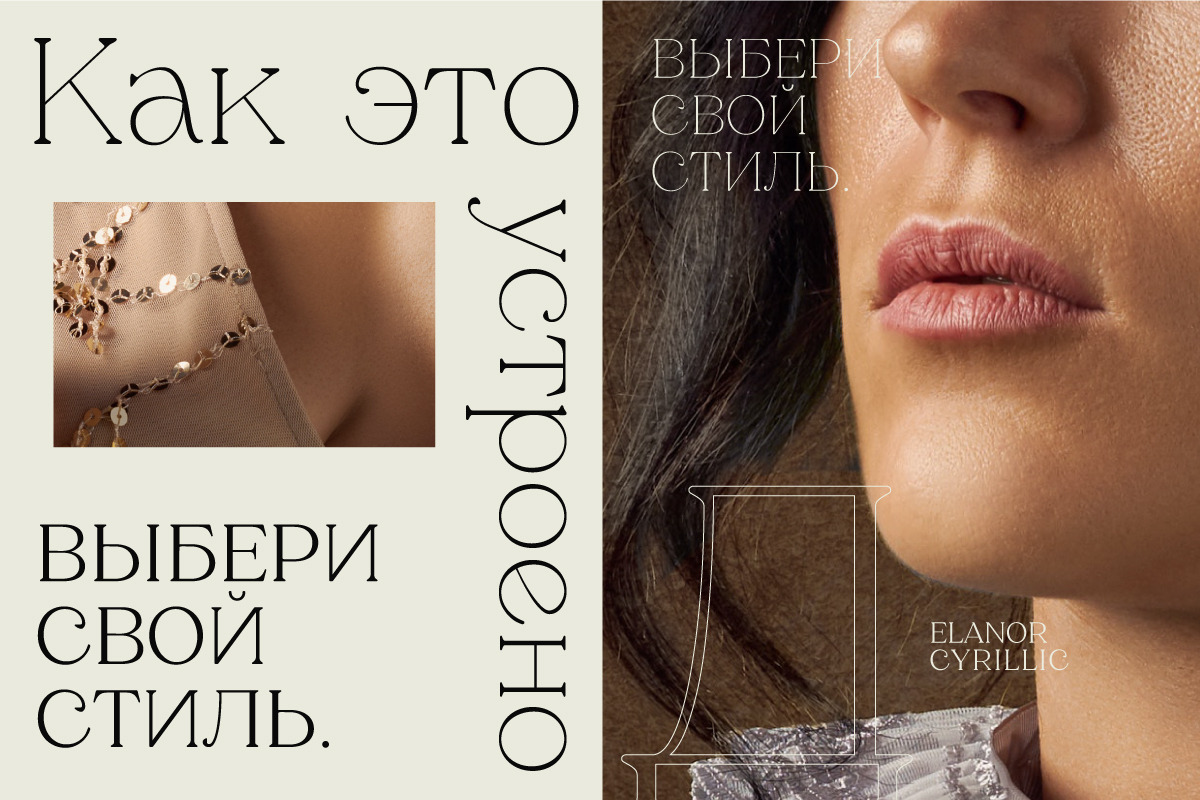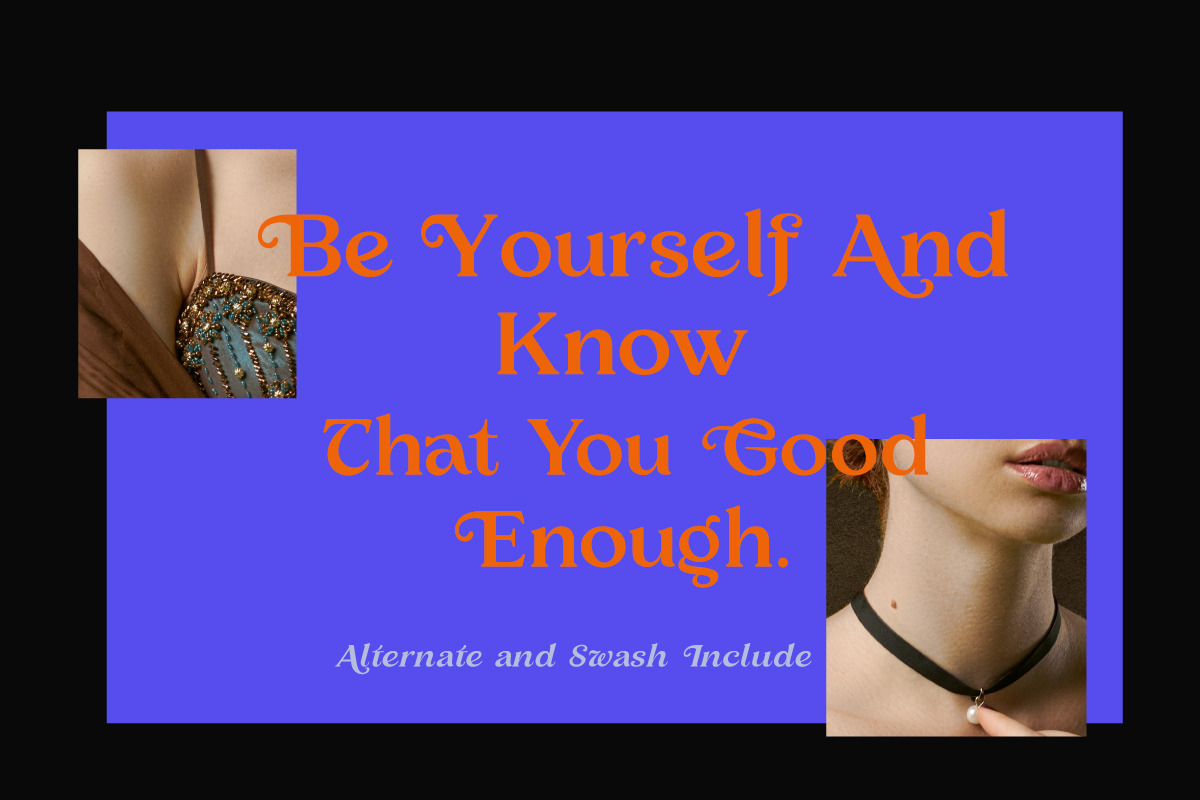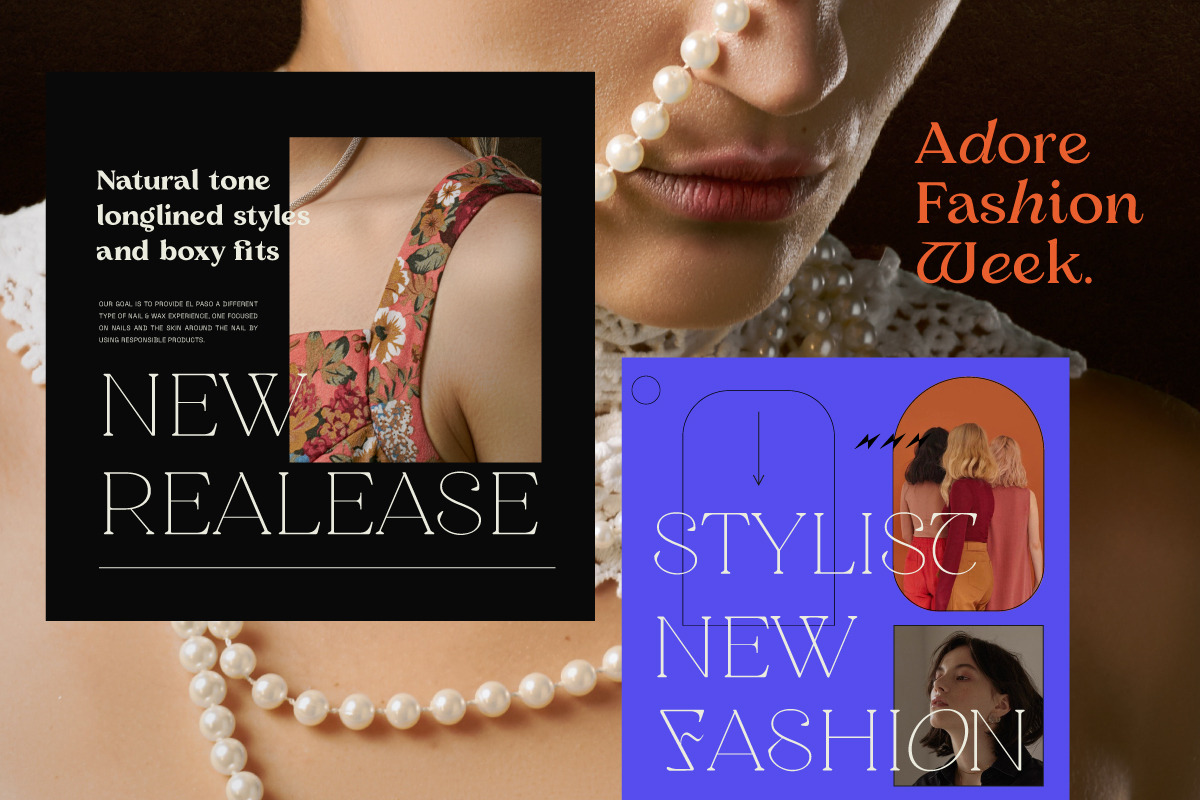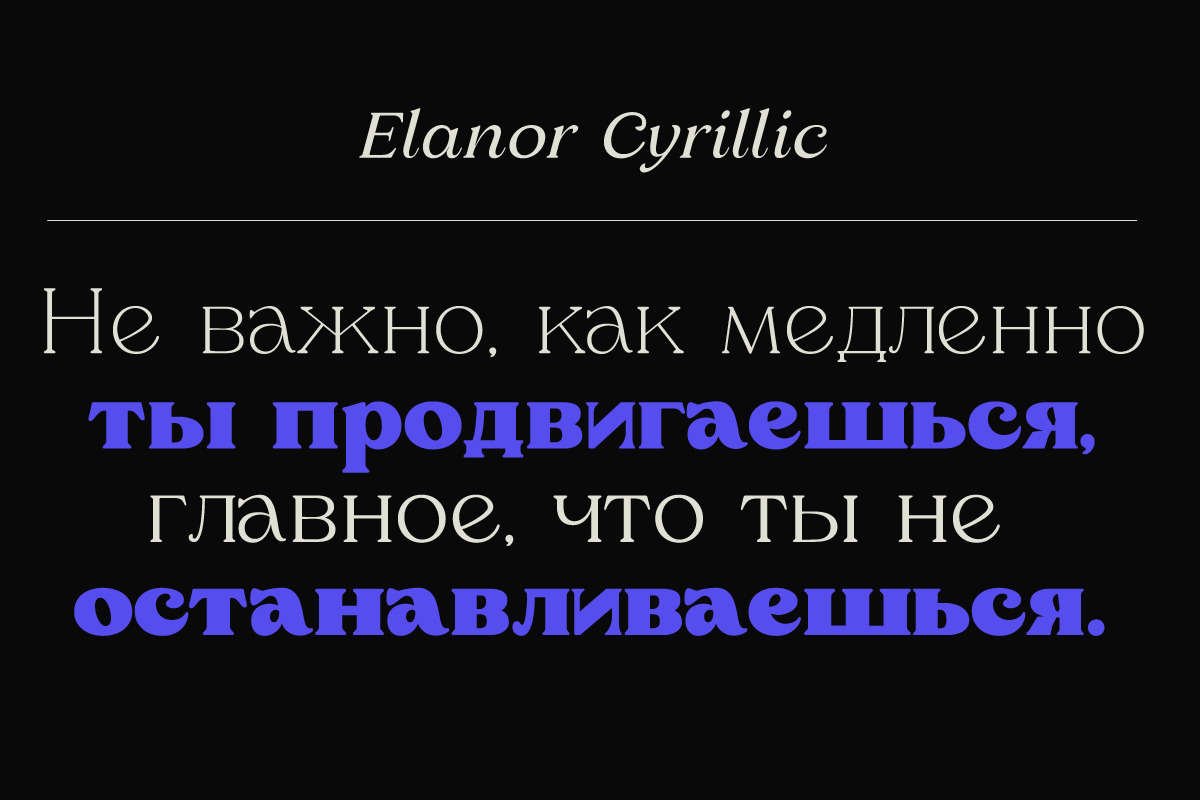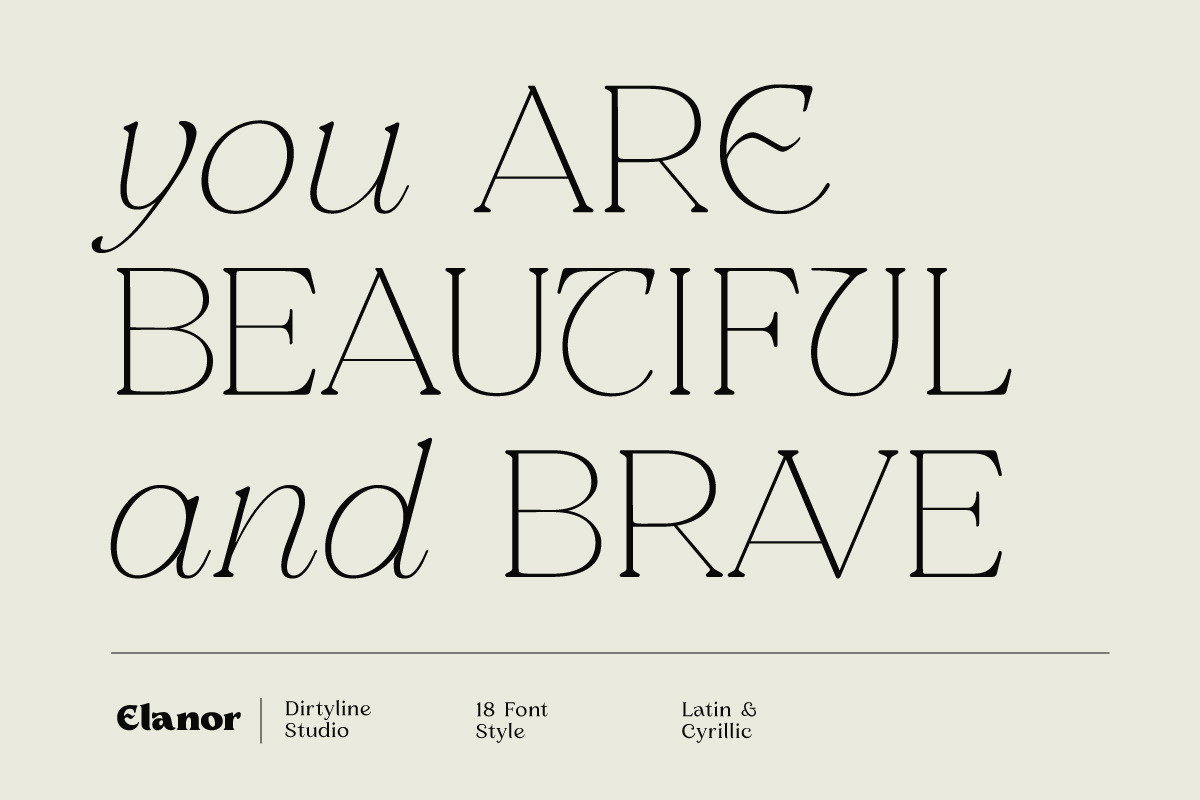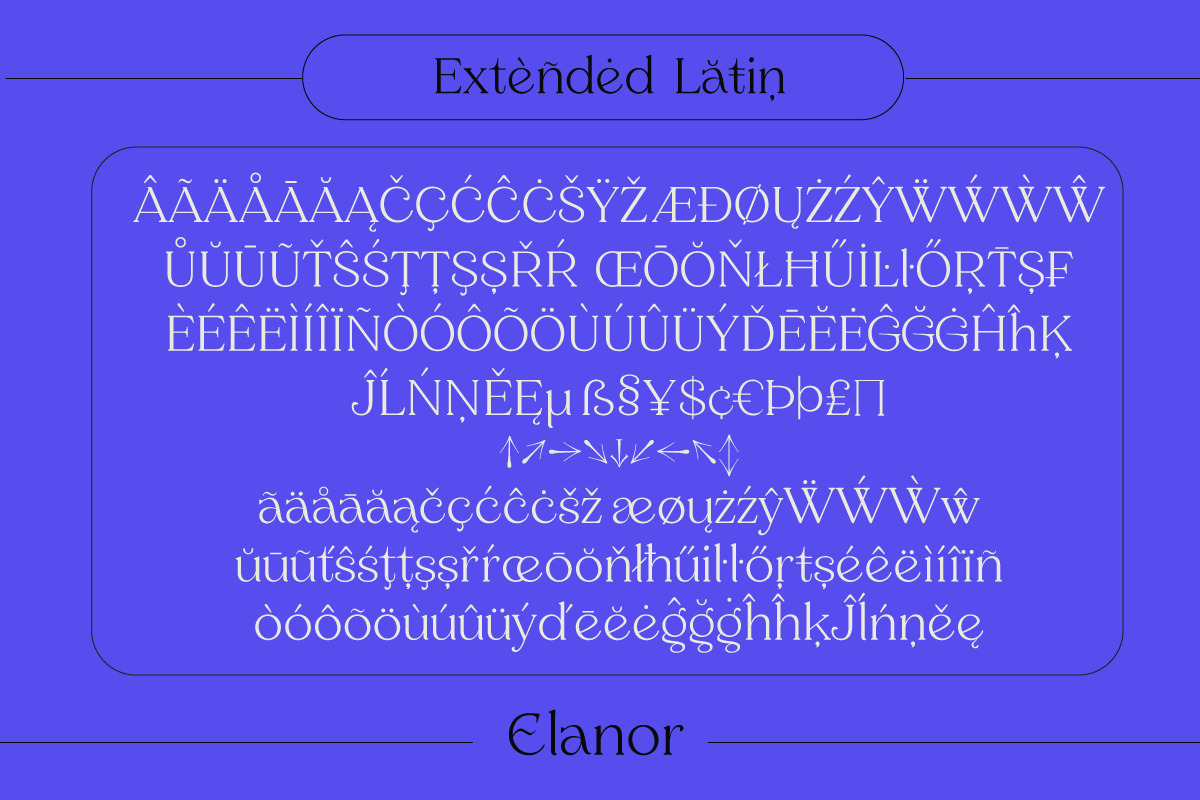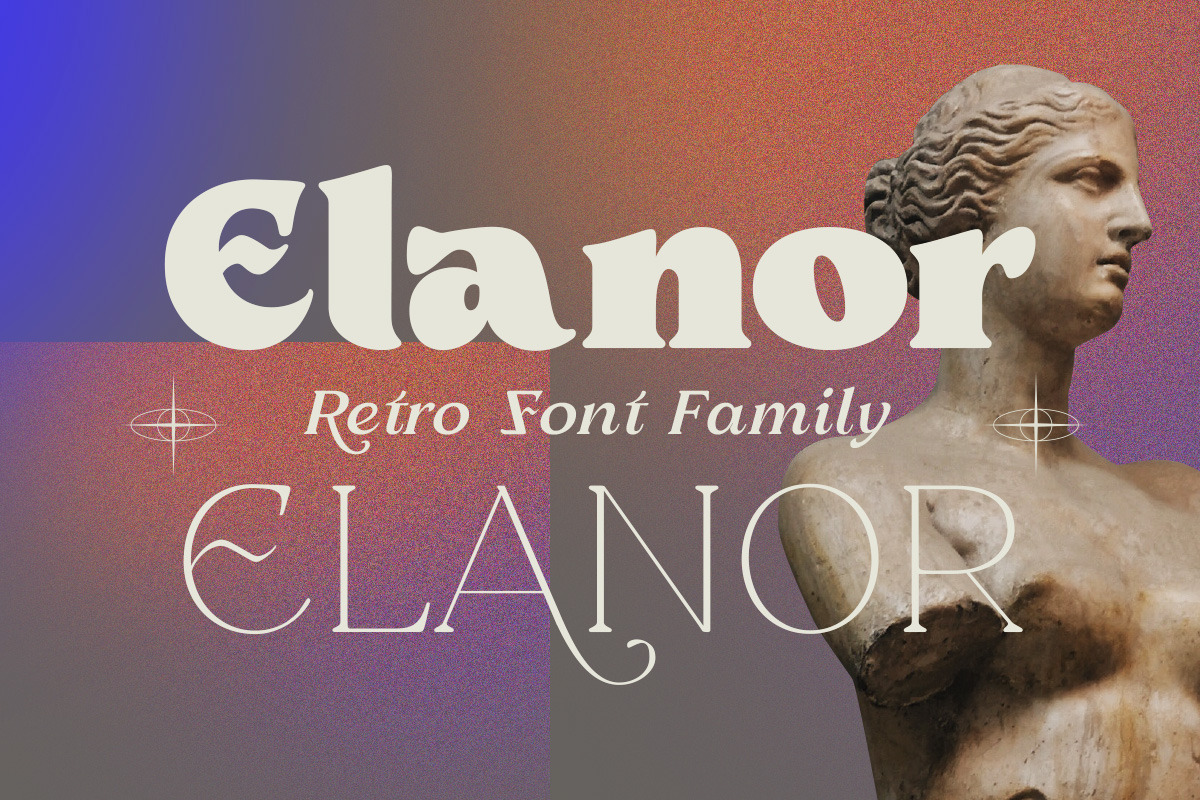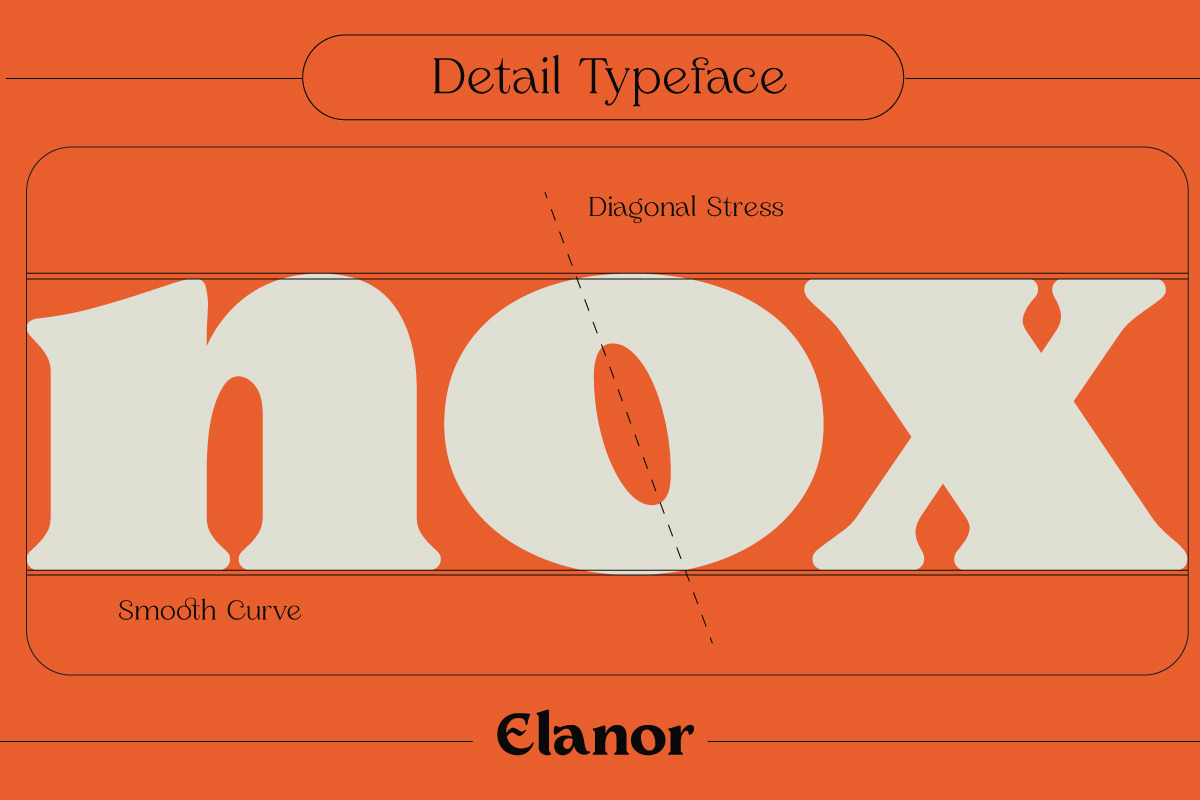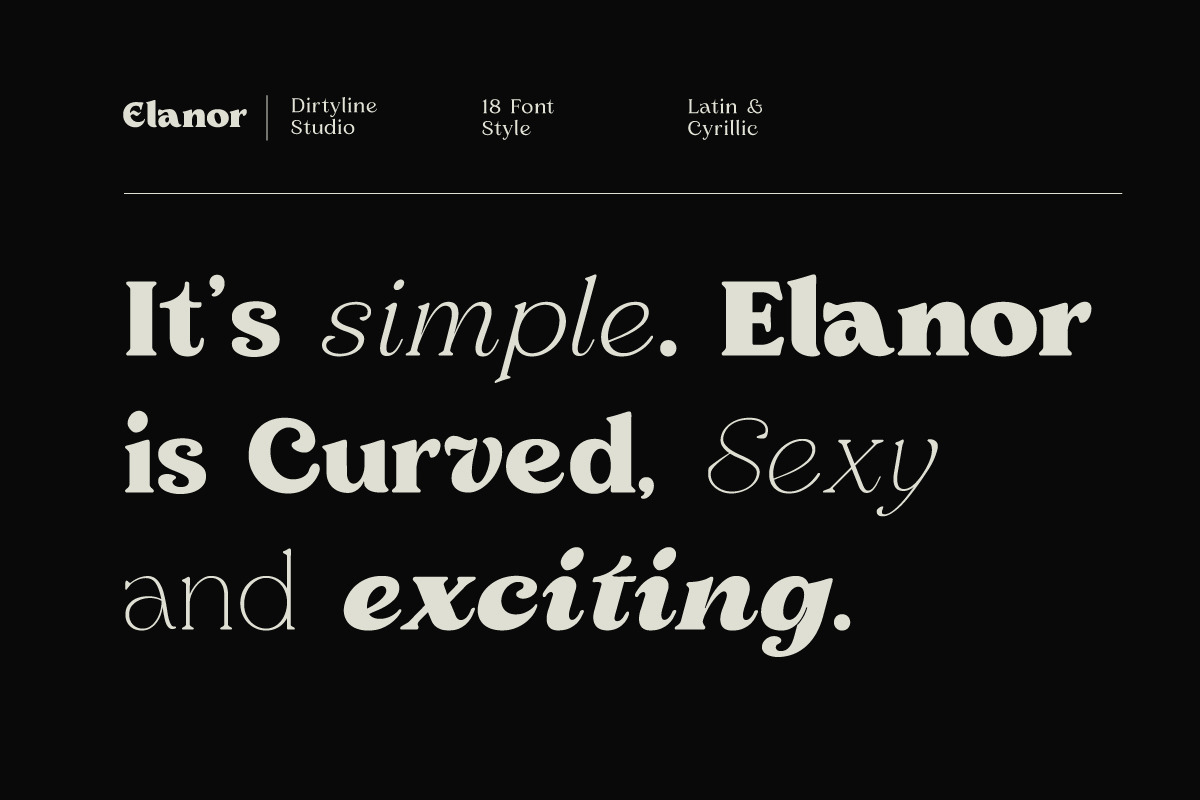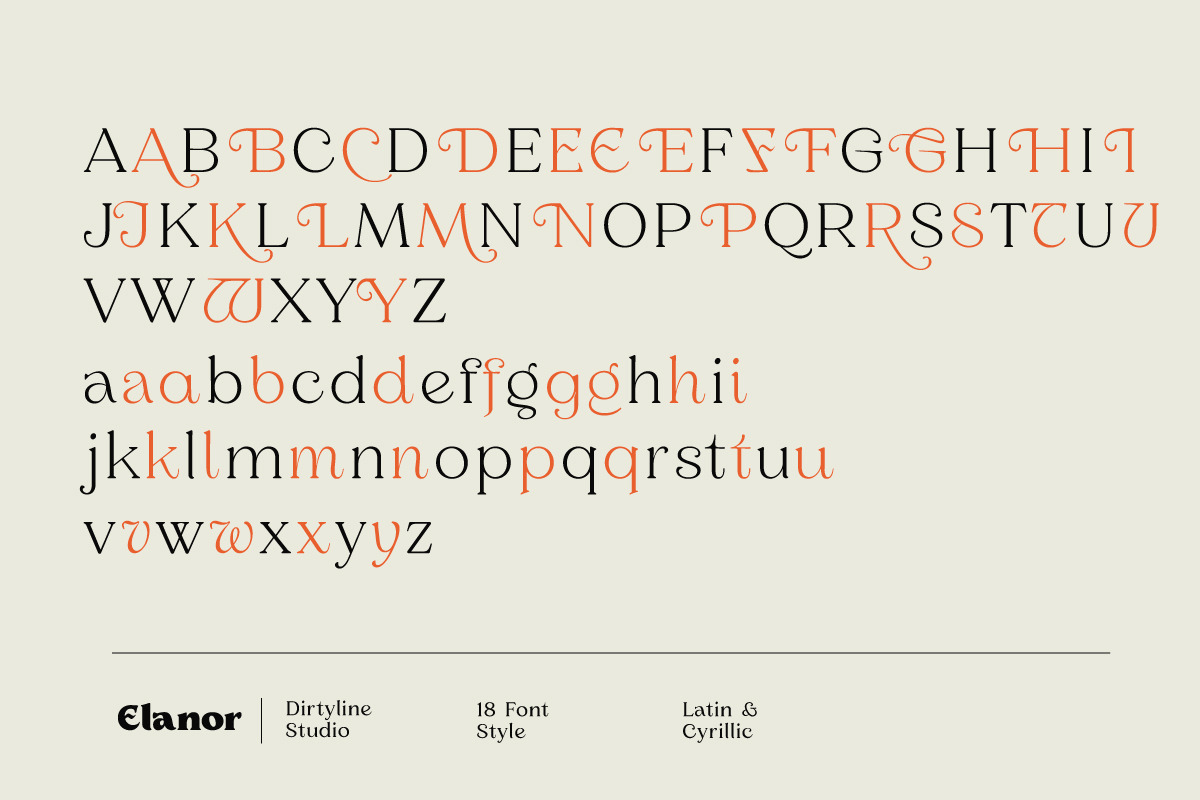
Elanor - Retro Font Classy Elegant
Elanor is a serif typeface inspired by Retro ’70s fonts mixed with Experimental touches. Its main features are a diagonal stress and soft curved teardrop shape terminals. It has ligatures that make it more elegant and grotesque elements that give it a modern look and make it more versatile.This typeface both impressive at display sizes and easily readable in text size, while the sharp shapes of the triangular serifs and the distinctive letter shapes show their strength in logo design and impressive editorial use.
Elanor come with elegant style, Retro and contrasts, with features an extended latin character set of 555 glyphs covering over 94 languages, Latin & Cyrillic. Elanor is ready to making your projects looking classic but contemporary, finely tuned but assertive, and elegant as the best retro design.